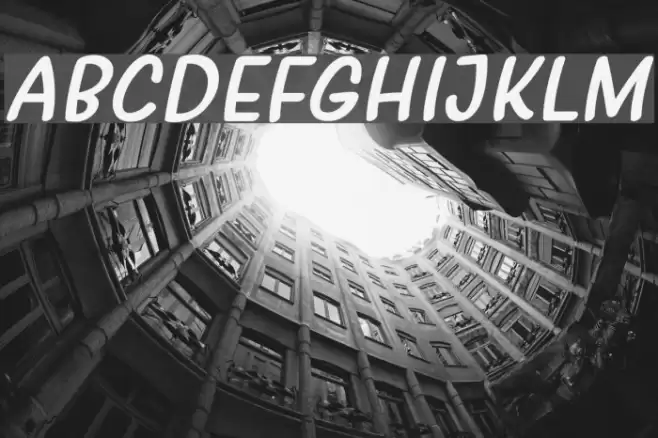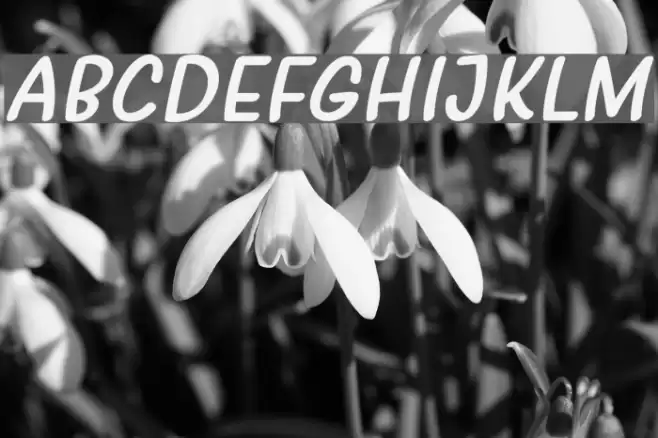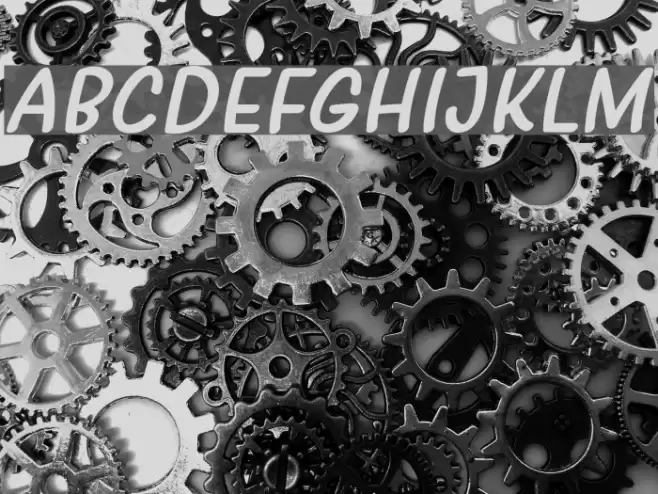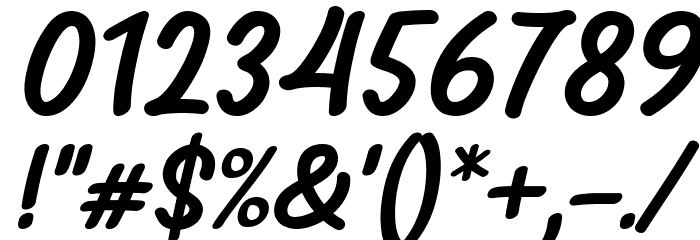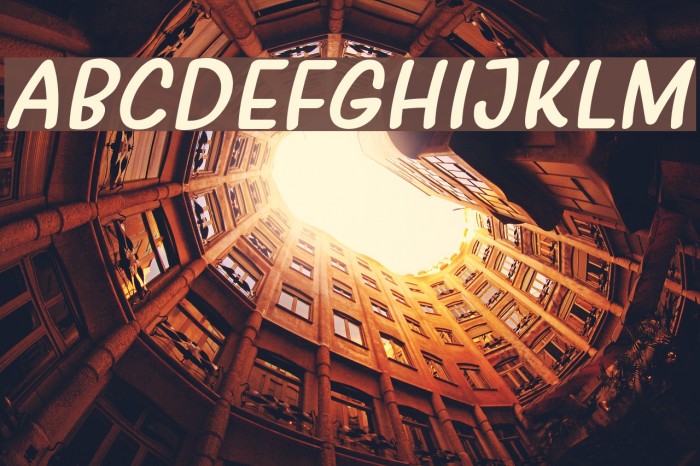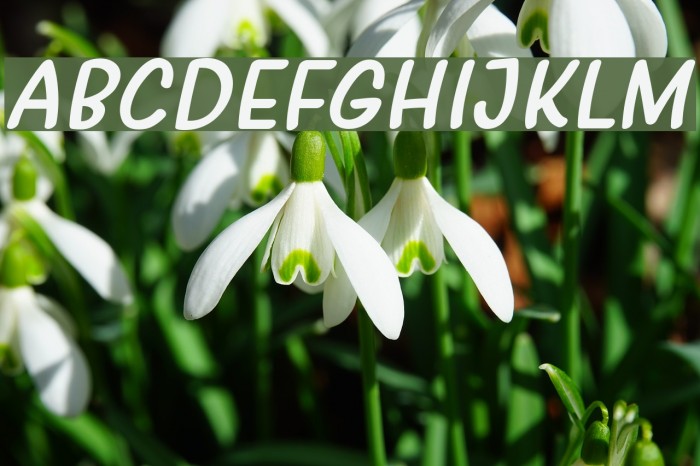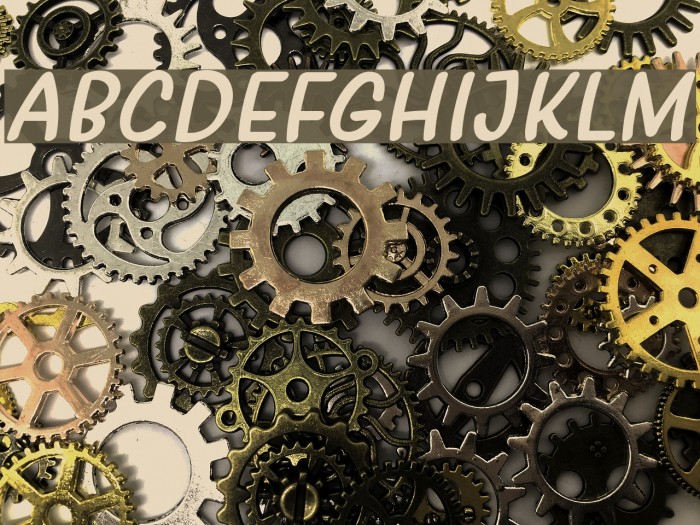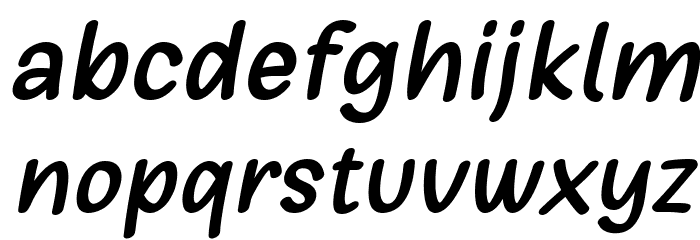
Girls Marks Italic Font
Girls Marks Italic Description
This font features a playful and casual script style with a slight slant, giving it an italic appearance. The letters are rounded and smooth, providing a friendly and approachable feel. The uppercase and lowercase characters maintain a consistent flow, while the numerals and special characters are designed to complement the overall style. The strokes are moderately thick, ensuring good readability while retaining a handwritten charm. This font is versatile, suitable for projects that require a personal touch or an informal tone.
A playful, italic script font with rounded, smooth characters from Uncategorized fonts.
- Proposed Projects: Ideal for greeting cards, invitations, personal branding, and casual social media graphics.
- Overall Style: Casual, Playful
- Use Case: Headlines, Logos, Invitations